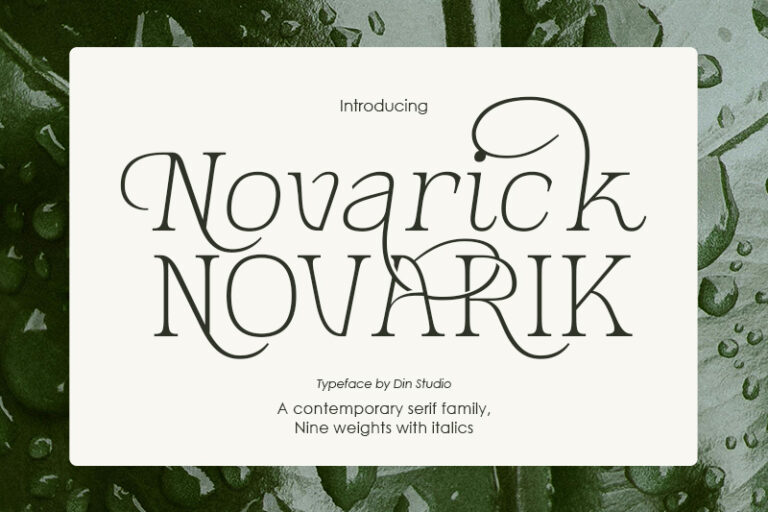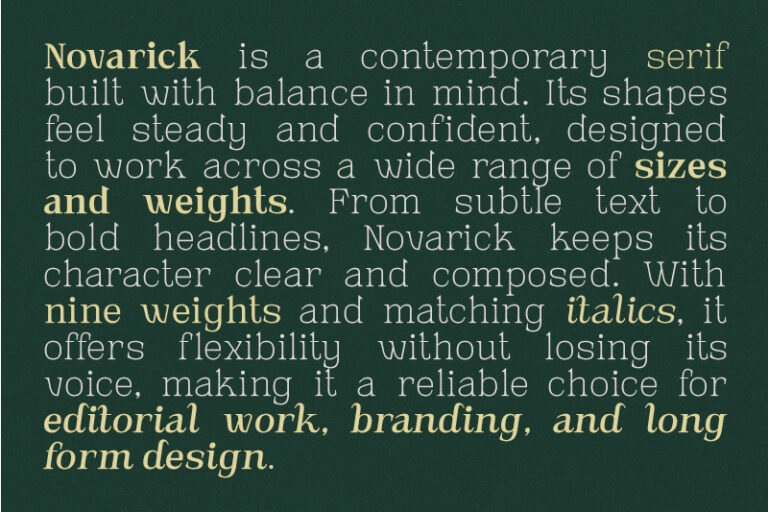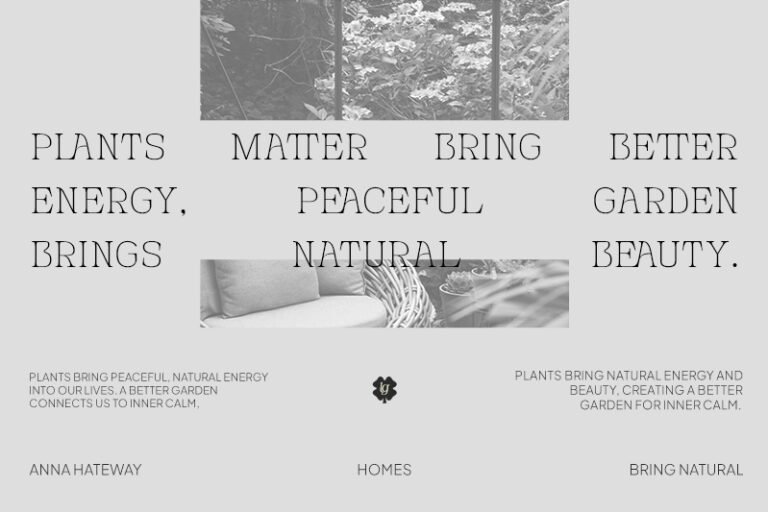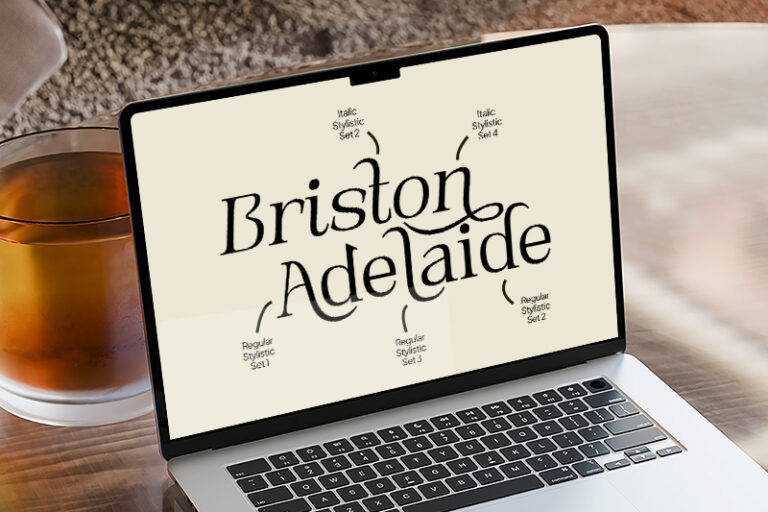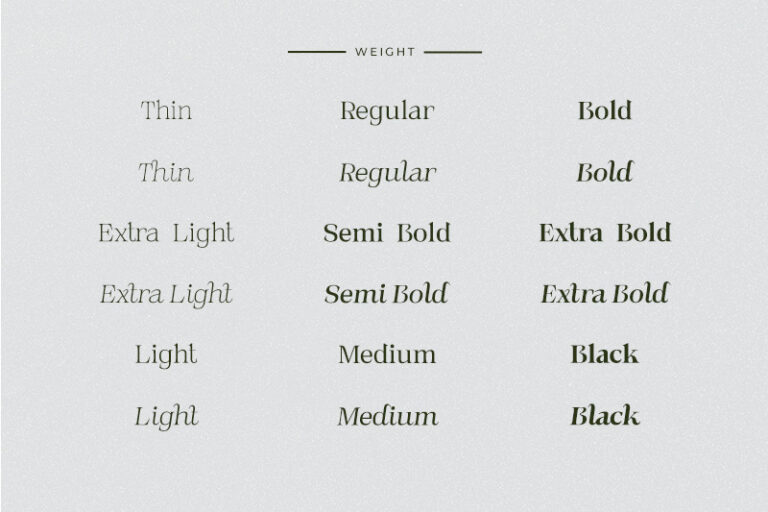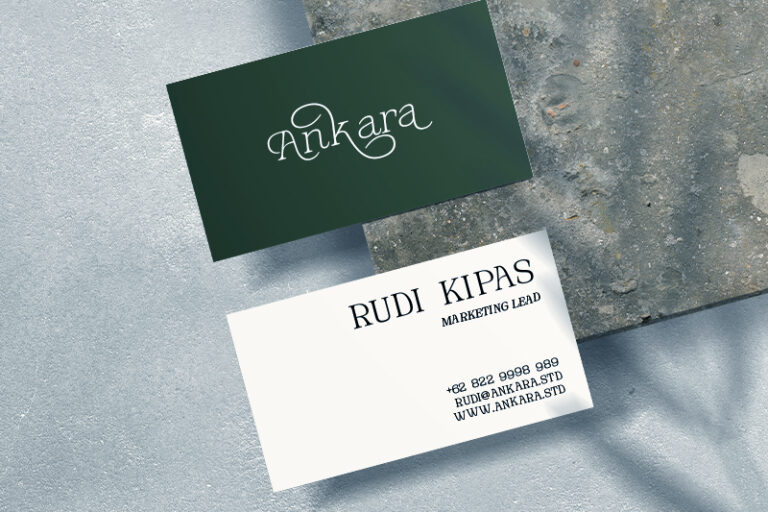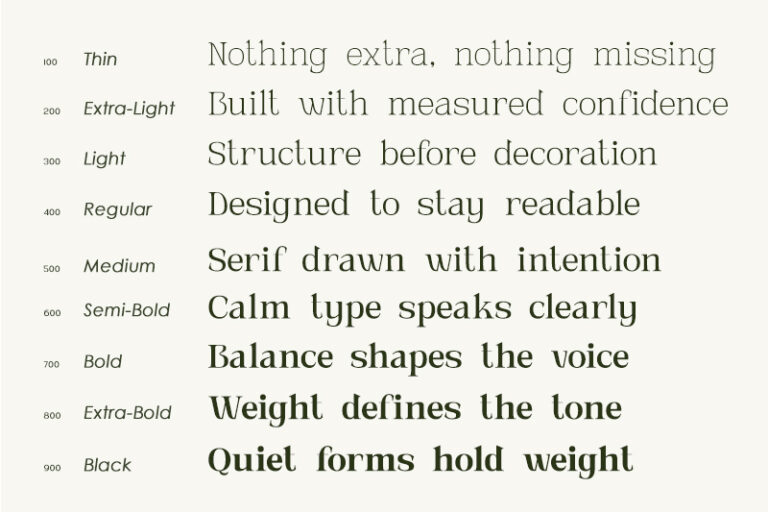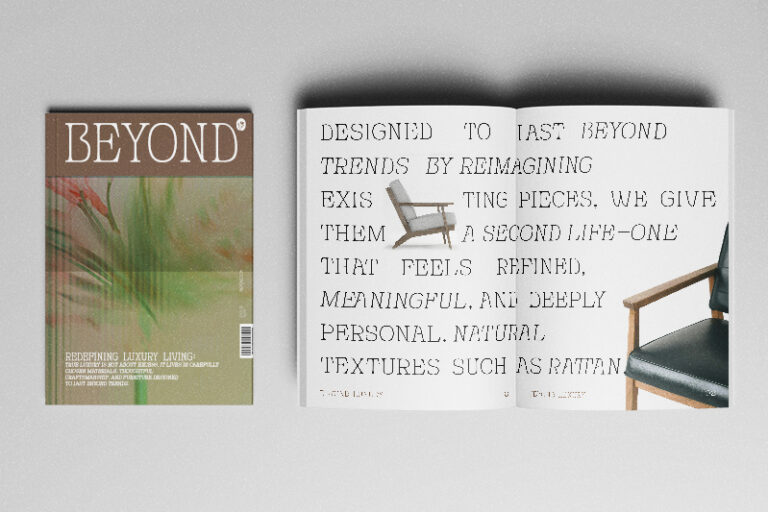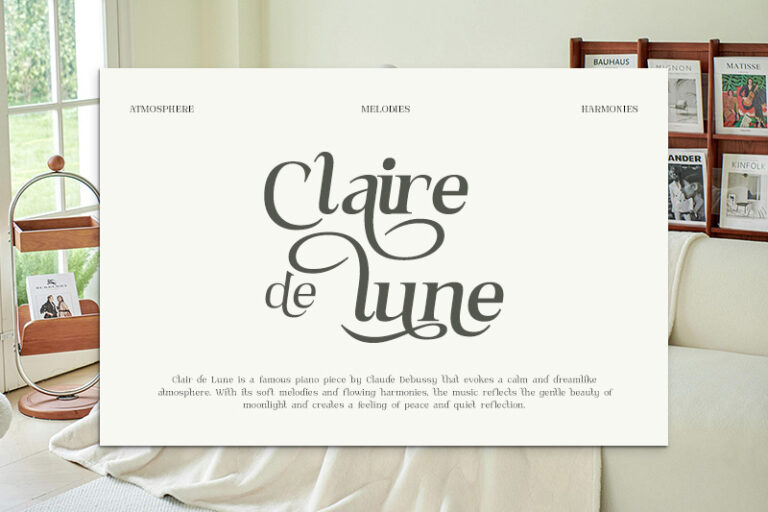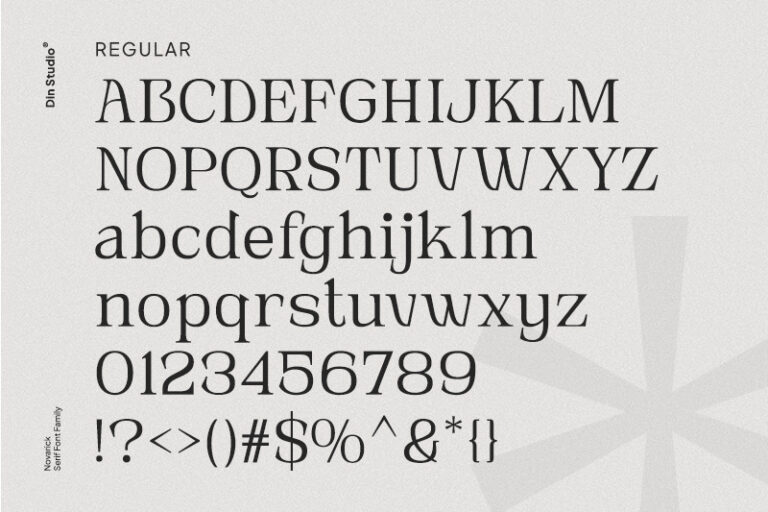
Novarick – Contemporary Serif Font Family
Novarick is a sophisticated serif font family designed in a contemporary style. Carefully crafted with refined proportions and clean serif details, Novarick offers a polished typographic experience suitable for a wide range of creative projects. Its modern approach to classic serif design makes it an ideal choice for designers seeking a font family that feels both professional and stylish. What makes Novarick more special is its beautifully designed italic version, which adds depth, movement, and expressive character to the typeface. In addition, enjoy the features here.
- Alternates
- Ligatures
Novarick fits in logos, quotes, name cards, branding, posters, and many more designs. Find out more ways to use this font by taking a look at the font preview.